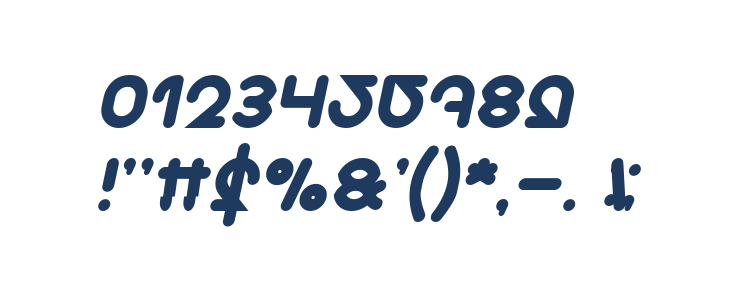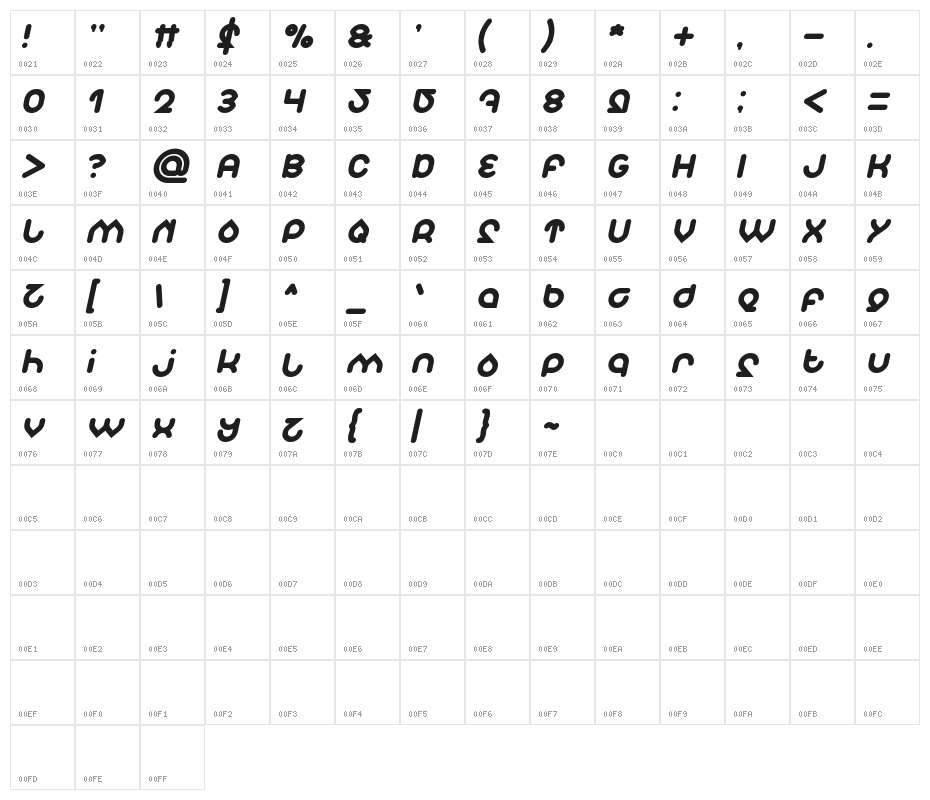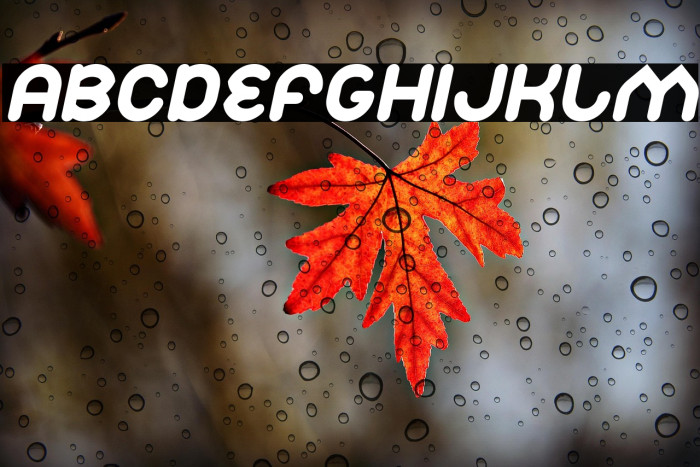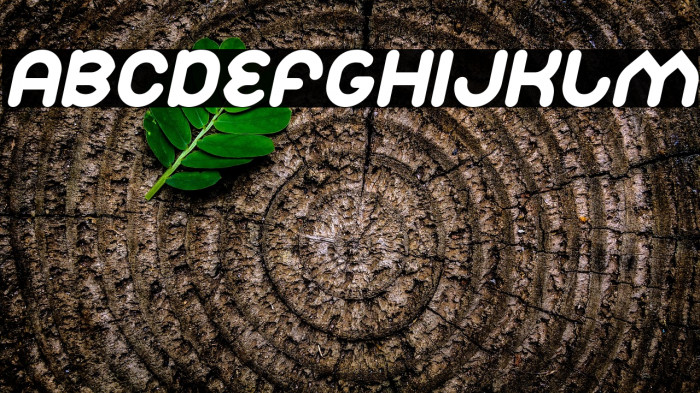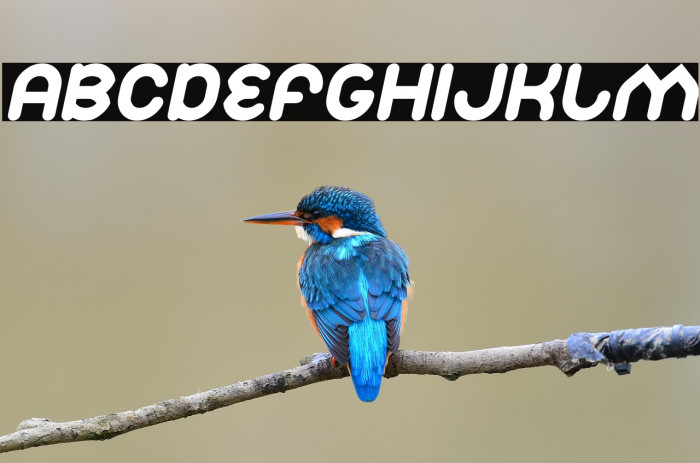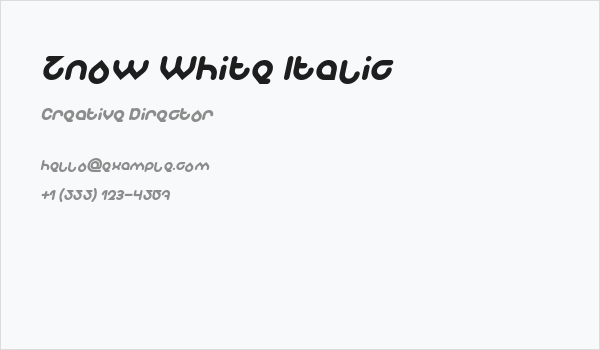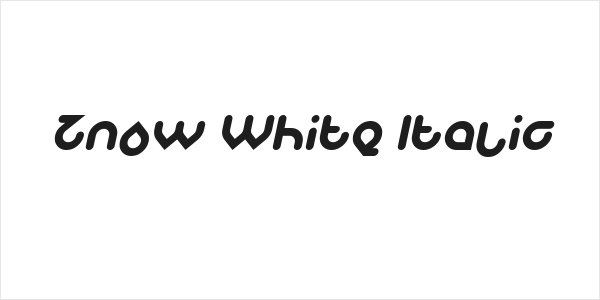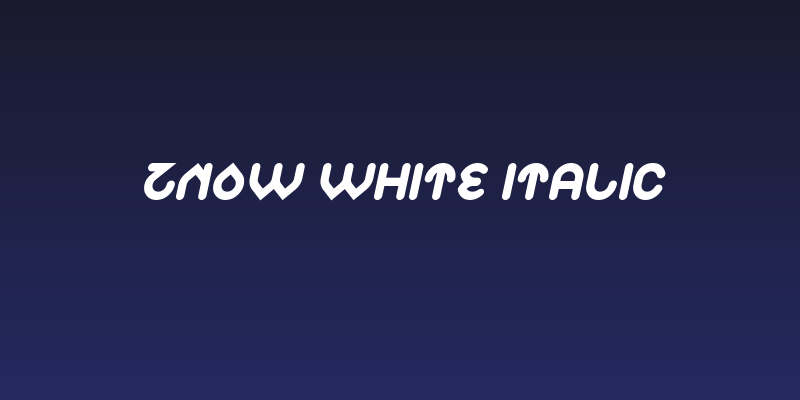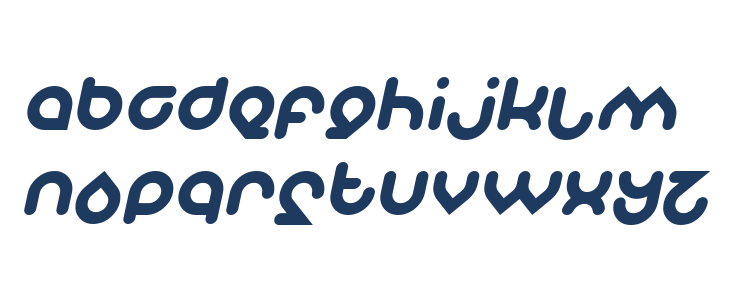
Znow White Italic Font
Znow White Italic Description
This font features a playful and bold design with rounded, flowing characters that convey a sense of movement and energy. The letters are slightly italicized, adding a dynamic slant to the overall appearance. The strokes are thick and consistent, providing a strong visual impact. The font includes both uppercase and lowercase letters, numbers, and a variety of special characters, all maintaining a cohesive style. The rounded edges and smooth curves give it a friendly and approachable feel, making it suitable for creative and informal applications.
| Overall Style | Playful, Modern |
| Proposed Projects | Ideal for children's books, playful branding, posters, and creative digital content. |